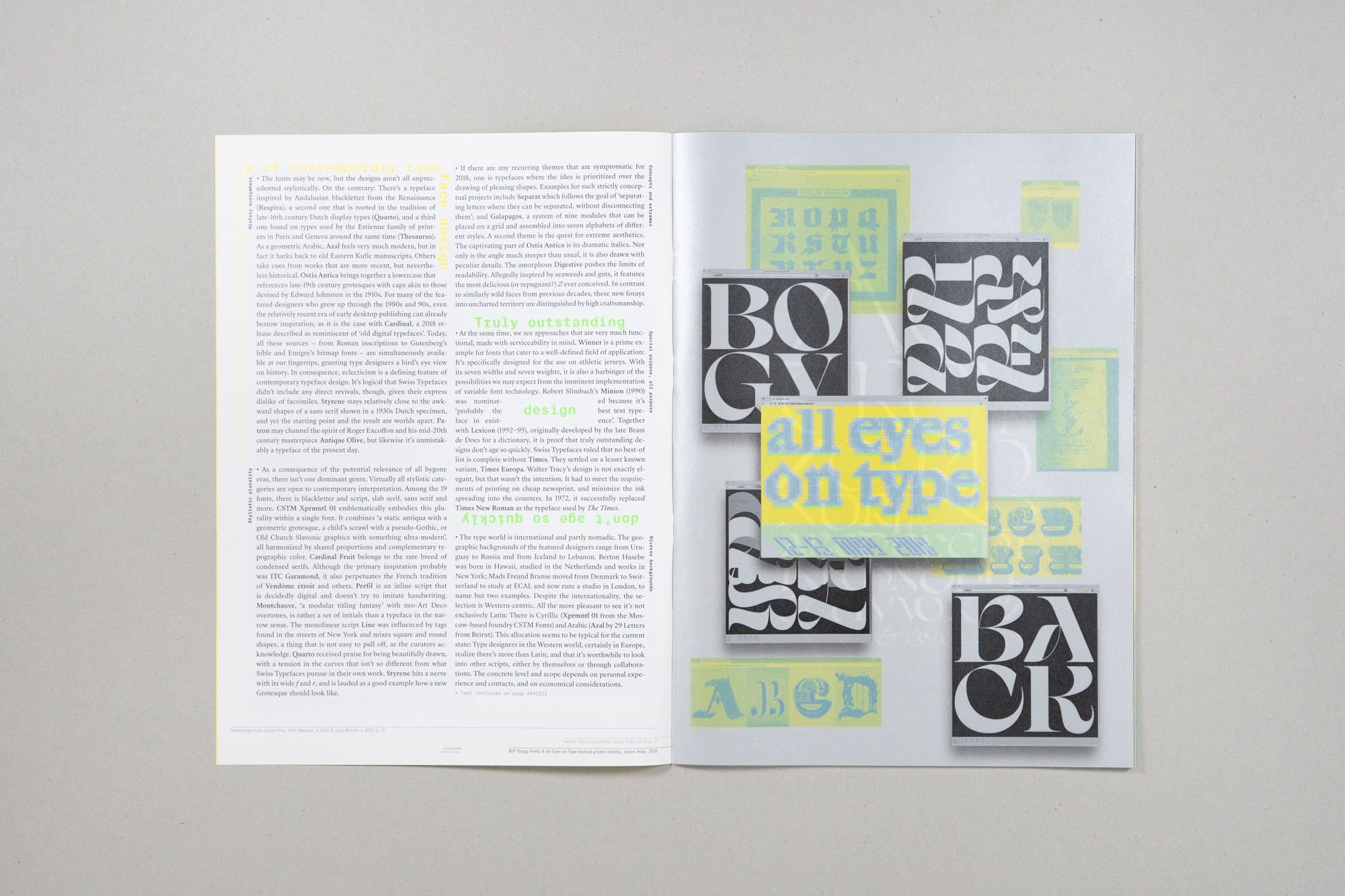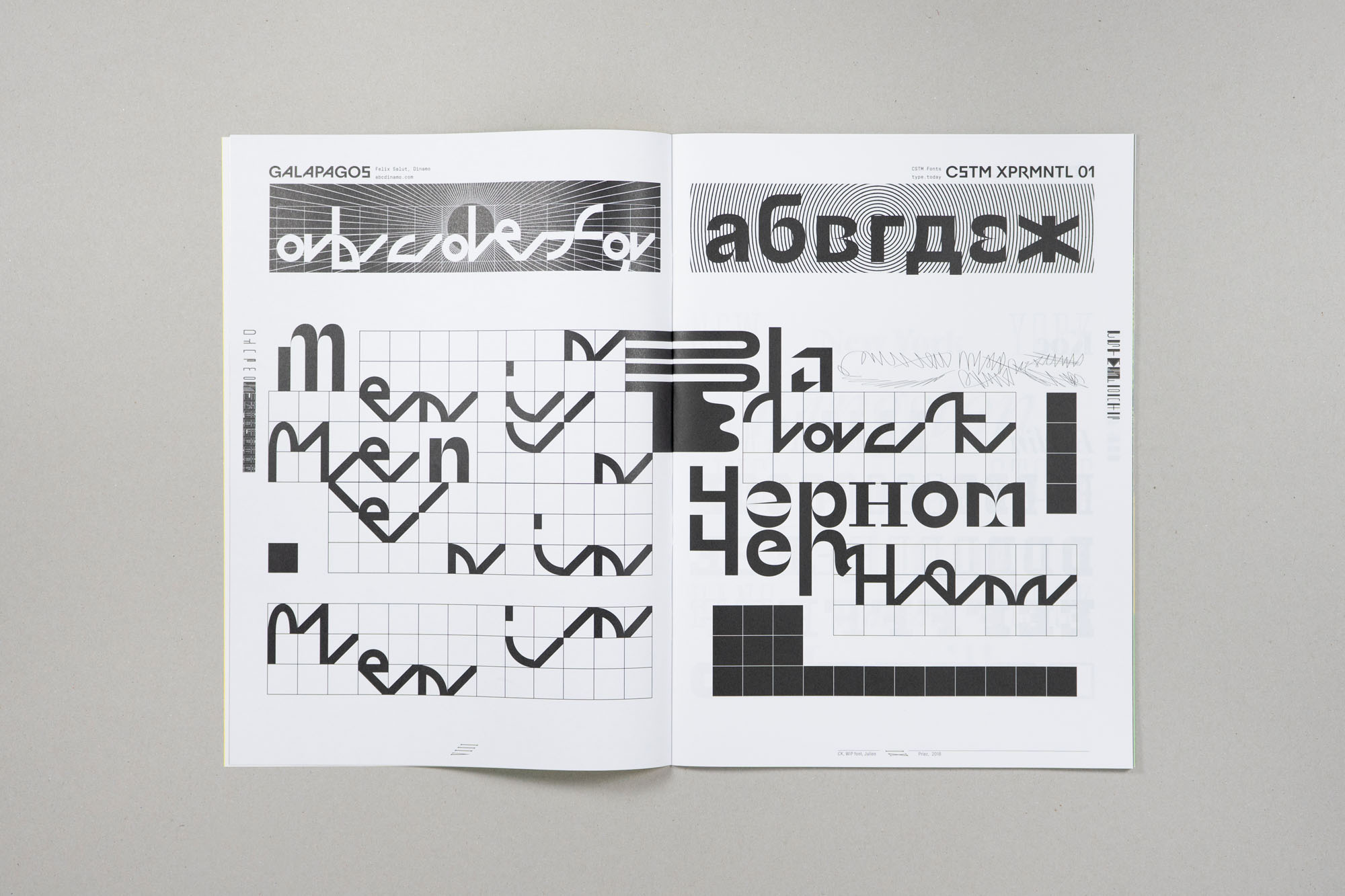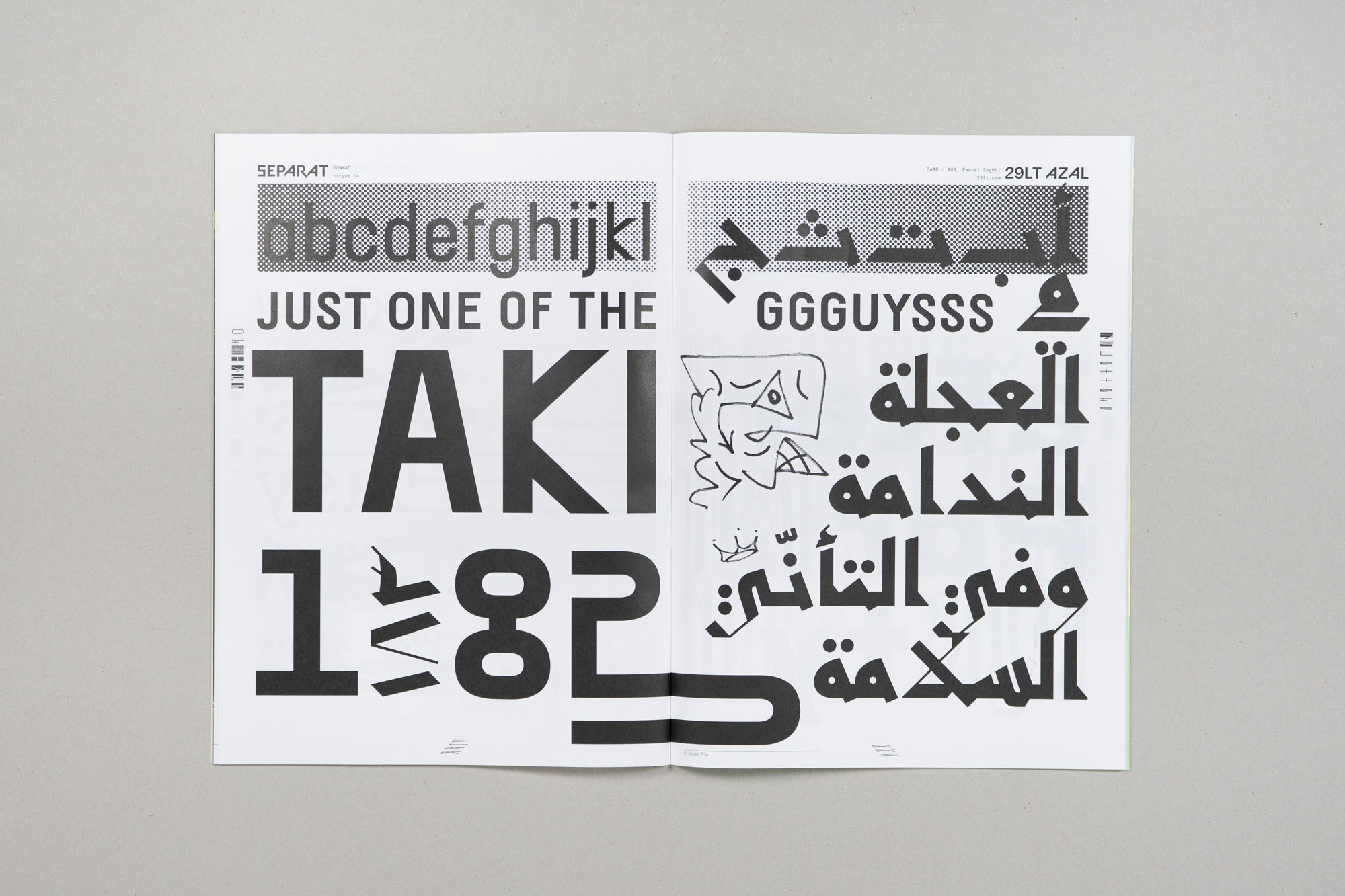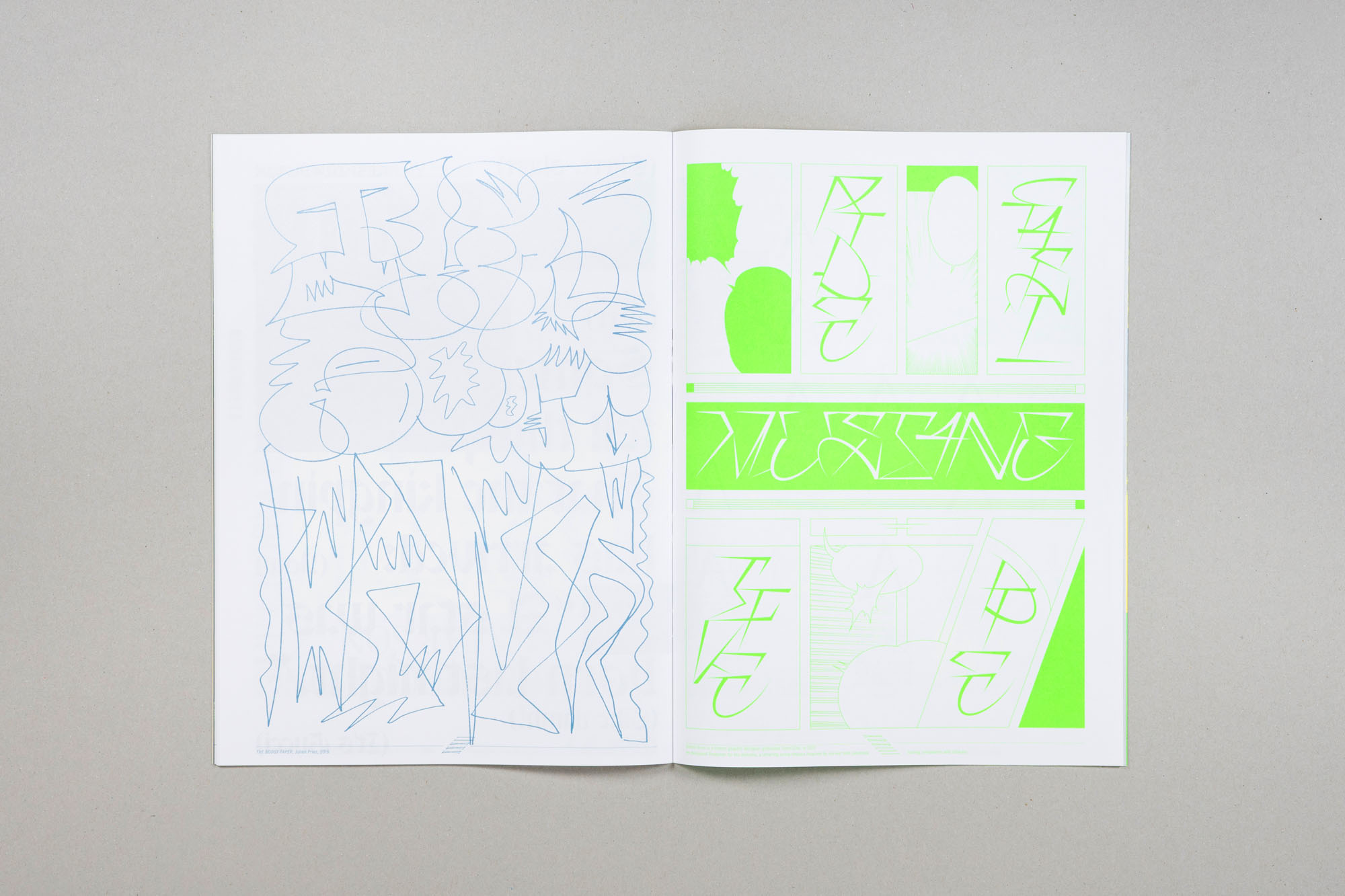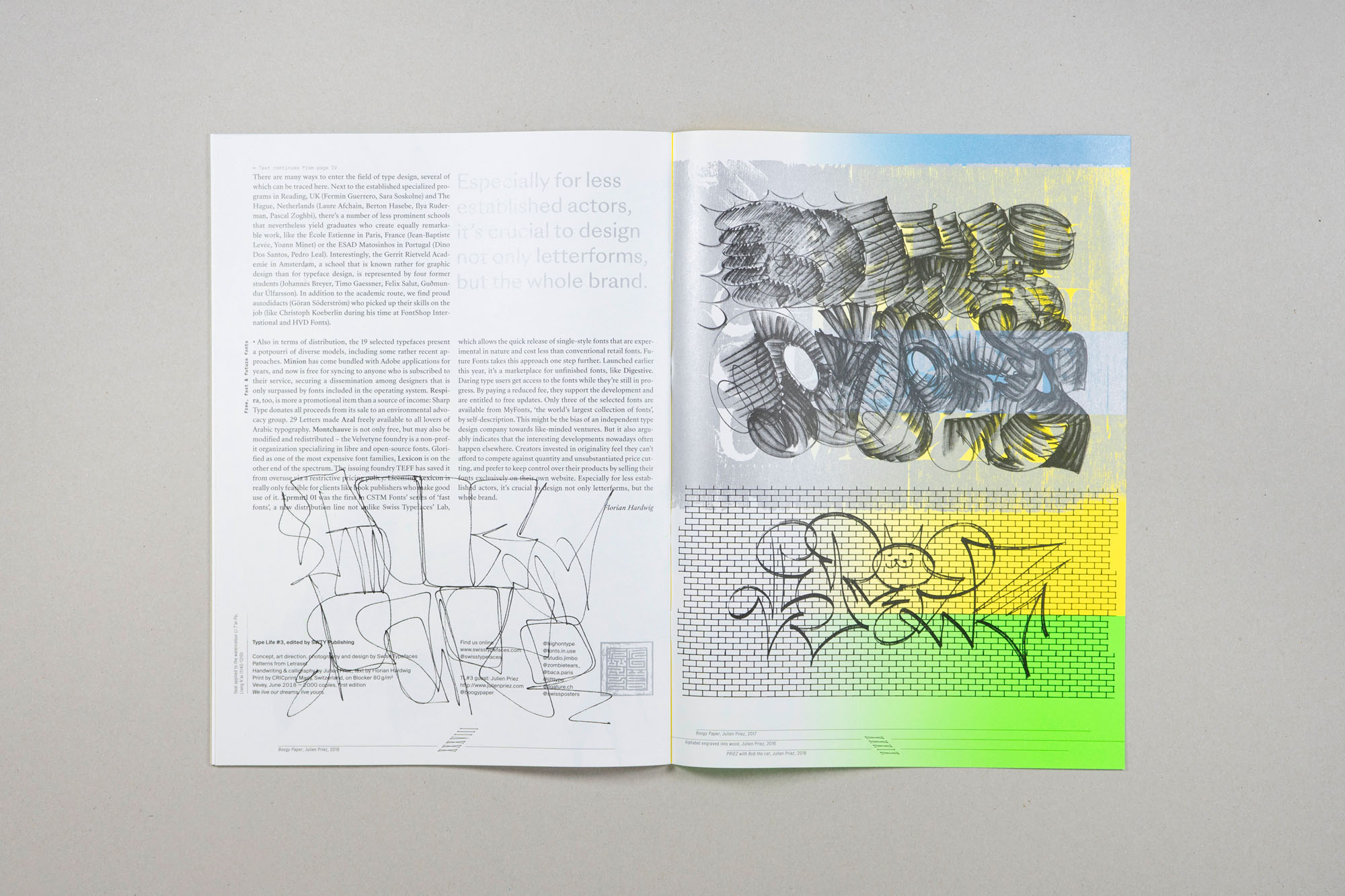
Swiss Typefaces’ publication celebrates “non-Swiss typefaces”
The third issue of Swiss Typefaces’ publication Type Life showcases 19 “non-Swiss” typefaces from 1569-2018
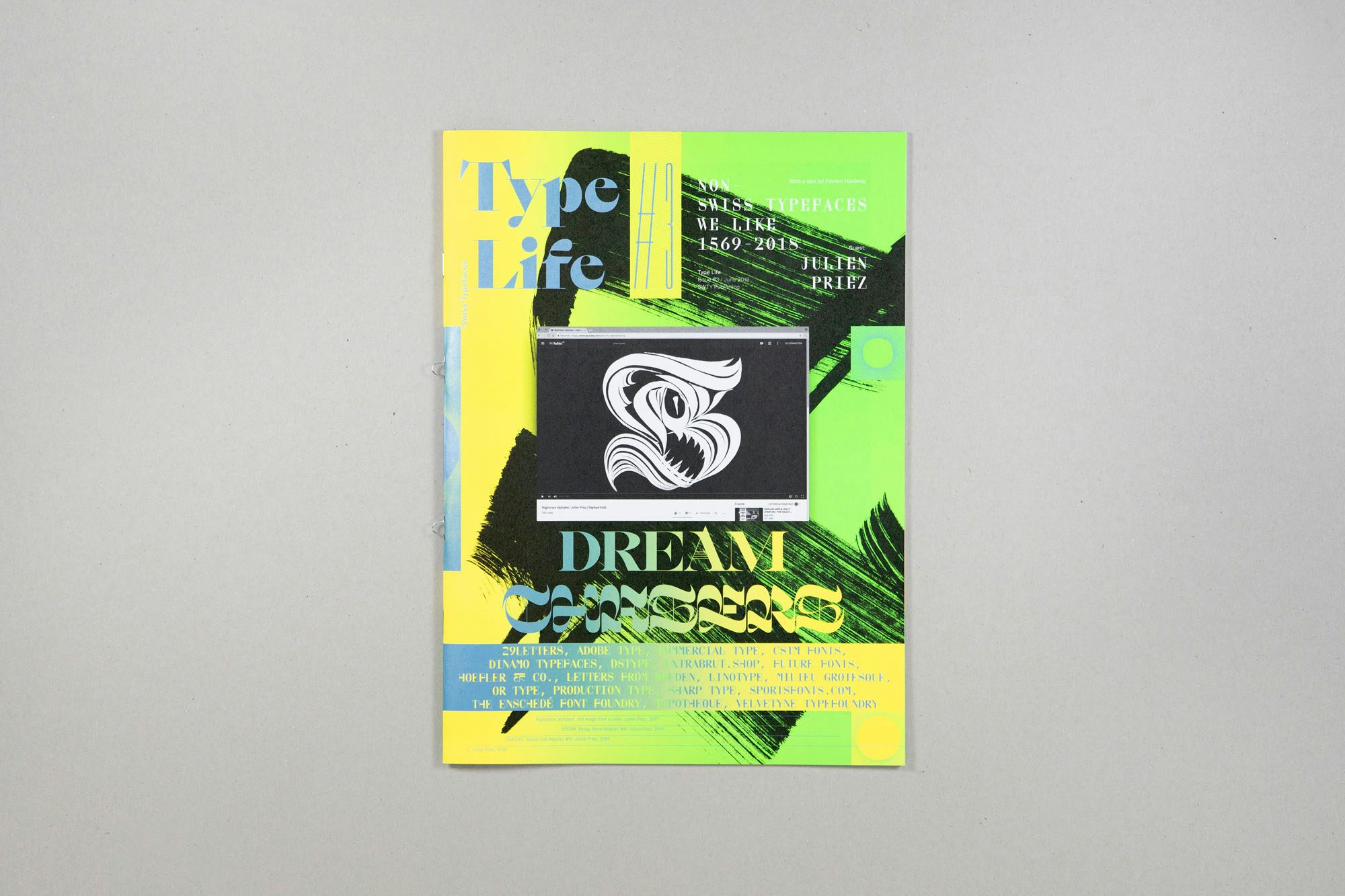
The succinctly named Switzerland-based type foundry Swiss Typefaces just launched the third issue of its Type Life publication, celebrating “non-Swiss typefaces” from 1569-2018. It’s certainly a broad remit – especially considering that the choice across that 449-year period is reduced to just 19 typefaces. According to Florian Hardwig of Fonts in Use, who penned the essay introducing the publication, that final selection “transcends being a subjective hit list, and gives an illuminating overview of the current scene, in terms of stylistic trends, but also in regard to other, less obvious factors”.
Each spread in the magazine showcases two typefaces, with lettering often deliberately spilling into the gutters and sweeping onto the next pages, “remind[ing] us that nothing exists in a vacuum,” says Hardwig.
The oldest typeface in the magazine is shown on two plates from Italian calligrapher Giovanni Francesco Cresci’s Il Perfetto scrittore, showcased alongside what Swiss Typefaces dubs “the best typeface ever made”, Caslon Old Face. Other highlights across this whistle-stop tour of type history include a celebration of Letraset face Vincent, “cheeky 1970s display faces” like Sally-Ann Grover’s Block Up and Benoit Brun’s Japanese-inspired Shakotan.
Among the 19 international type foundries featured are Commercial Type, Dinamo Typefaces, DSType, Linotype, Milieu Grotesque, Or Type, Production Type, Sharp Type and Velvetyne Typefoundry; with distribution models ranging from traditional licensing to subscriptions, free and open-sourced fonts, as well as experimental and unfinished releases.
For each issue of Type Life, Swiss Typefaces appoints a guest contributor, and for issue three, French lettering artist and All Eyes on Type festival organiser Julien Priez was brought in to pepper the mag with his own work. A still from his animated Nightmare Alphabet graces the cover as a screen shot, with two of his in-progress fonts Boogy Roma and Boogy Link working alongside the lurid green and yellow palette to create a 1990s Net Art vibe. These sit next to the Type Life masthead, which is set in SangBleu Empire Black.
Type Life magazine was started by the foundry “to give our customers and followers something tangible, a physical object from us they can enjoy and collect,” says Emmanuel Rey of Swiss Typefaces. Prior to issue three, the publications had only showcased the foundry’s own work, but felt that it was time to “take a look beyond our own work and celebrate contemporary type by showcasing excellent work done by other talented type designers,” says Rey.
The design of each issue looks to go beyond traditional type specimens, “which are usually very dry, conservative and made to boost sales by highlighting the characteristics of the fonts featured,” says Rey. “The design has to bring something that can capture people’s attention, it has to be visually strong and attract people even if at first that’s by disturbing them with something unusual,” he explains.
“It has to be innovative enough and visually fresh. The layout has to be consistent enough to allow a series of publications, but with as few constraints as possible to give space for our experiments to express themselves.”